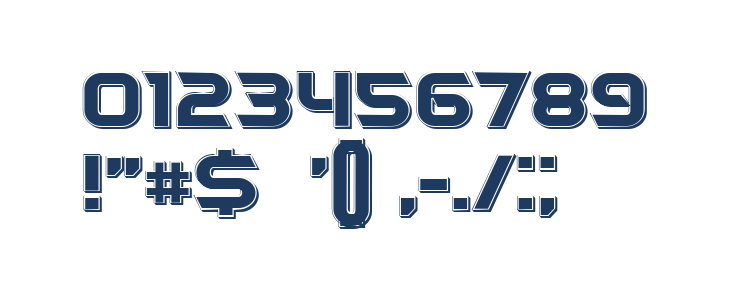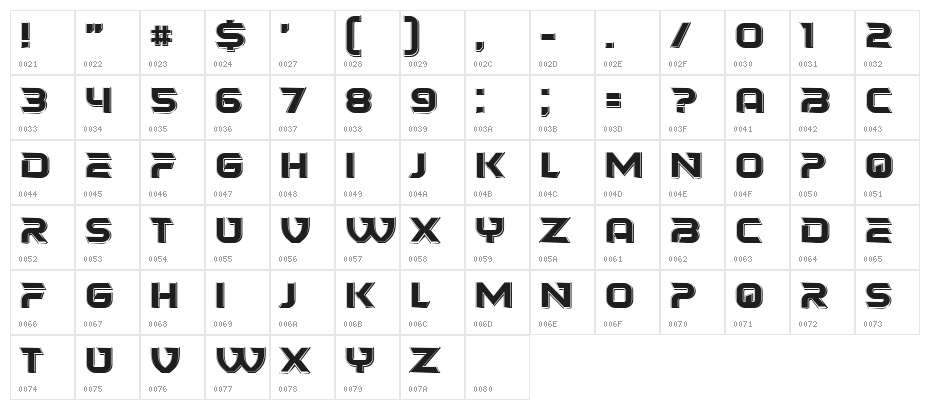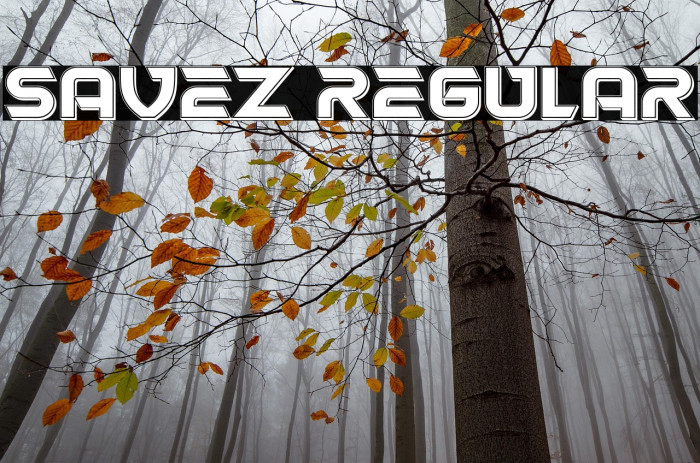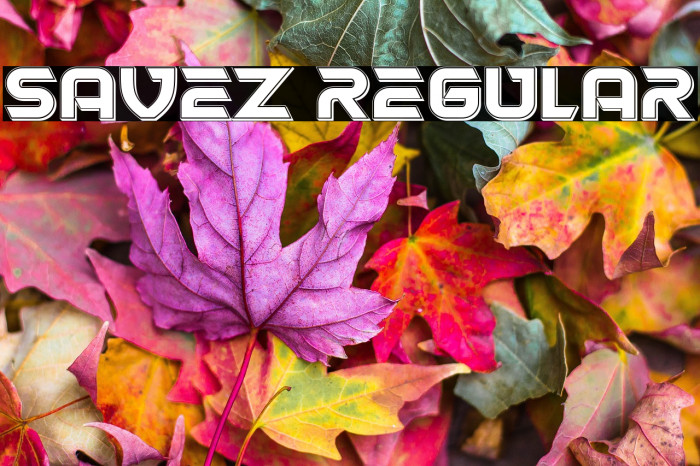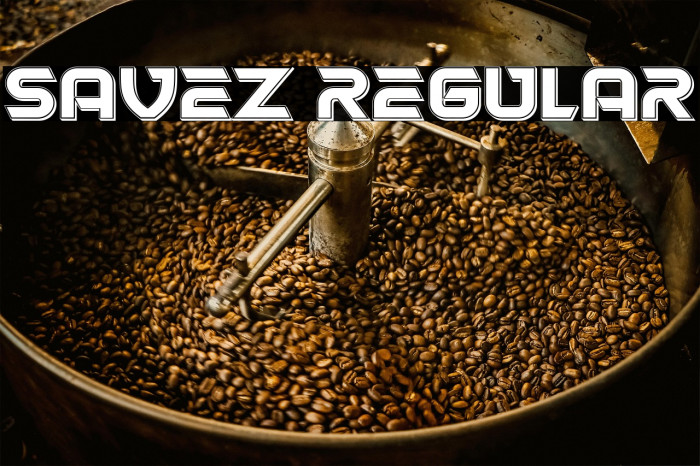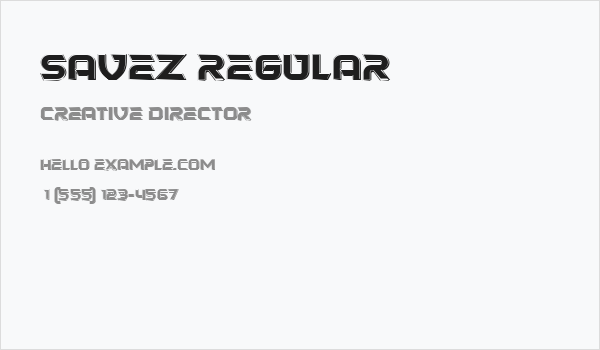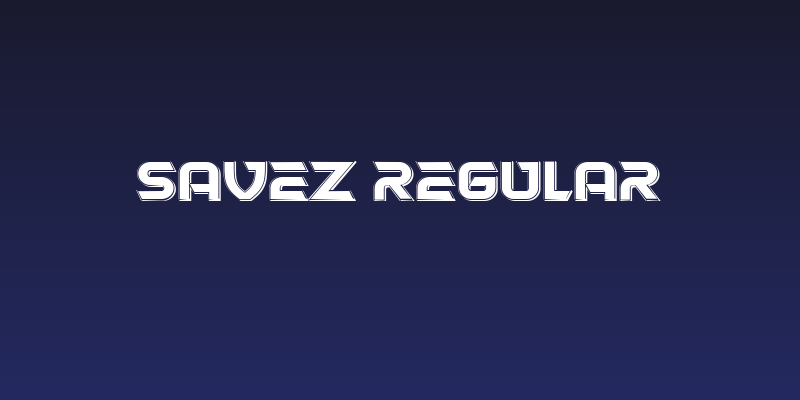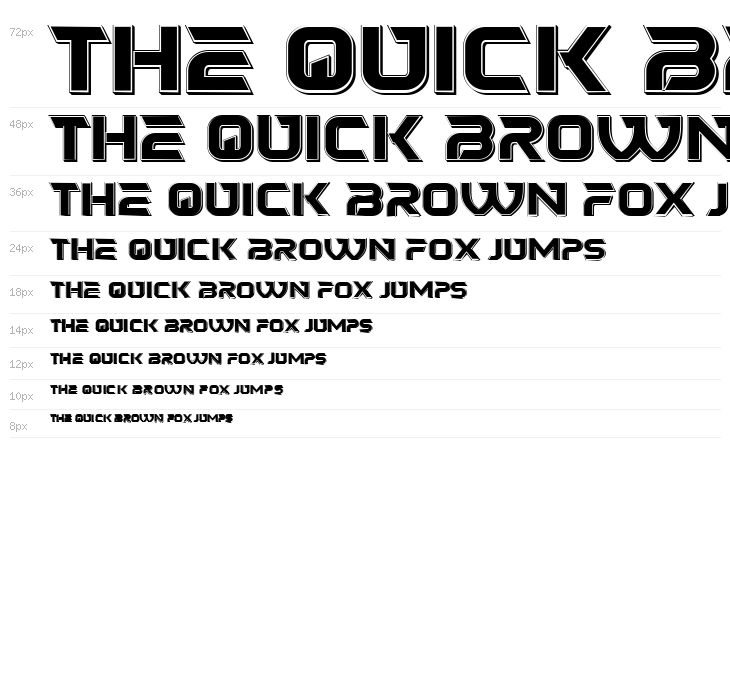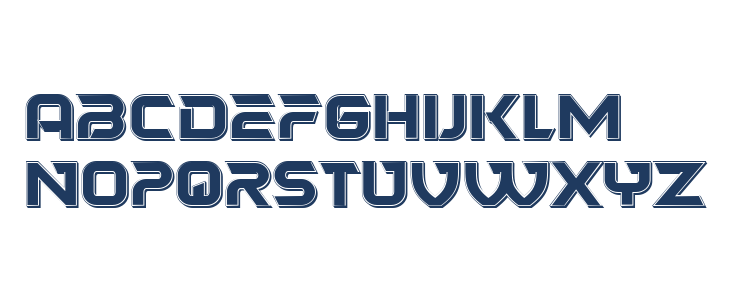
Savez Regular Font
Savez Regular Description
This font features a bold, futuristic design with a strong geometric influence. The characters are constructed with sharp angles and a distinct block-like appearance, giving it a modern and edgy feel. The uppercase and lowercase letters maintain a consistent style, with the uppercase letters being particularly striking due to their boldness. The numbers and special characters follow the same design principles, ensuring a cohesive look across all glyphs. The font's unique style makes it stand out, ideal for projects that require a modern and impactful visual presence.
| Proposed Projects | Ideal for technology branding, sci-fi themed designs, video game titles, and modern advertising campaigns. |